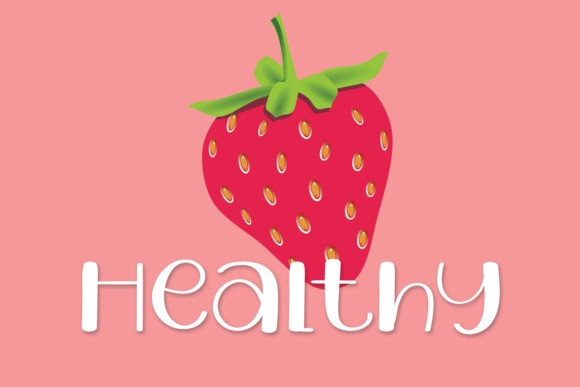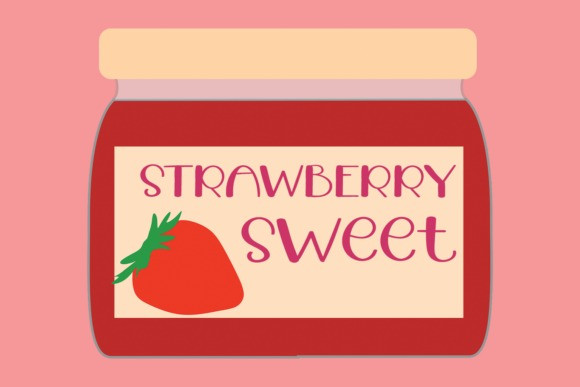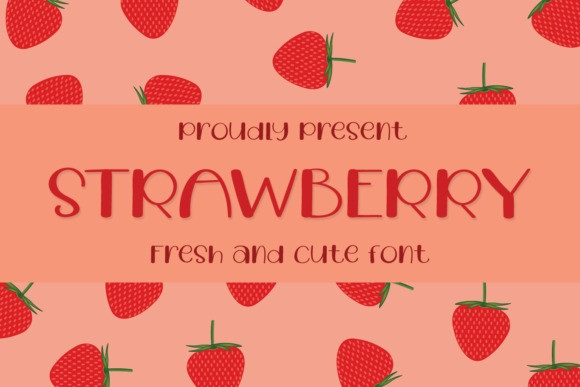
Strawberry Font
Strawberry Font is a fashionable and fresh handwritten font. This unique font will effortlessly turn any design project into a stand out!